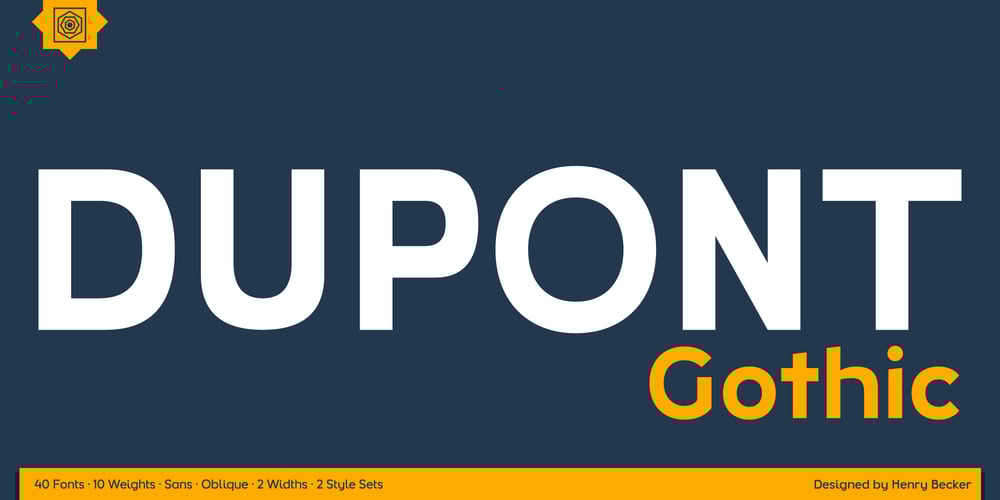
Dupont Gothic Font Family was designed by Henry Becker and published by Hexagon Foundry. Dupont Gothic contains 40 styles and family package options. Dupont Gothic is a sleek and contemporary sans-serif font that embodies elegance, clarity, and modernity. With its clean lines, balanced proportions, and distinctive character, Dupont Gothic is a versatile typeface that can be used in many ways.The simplicity of Dupont Gothic lends itself to a wide range of applications. Whether used for headlines, body text, or branding, this font possesses a quality to effortlessly adapt to different design contexts.The font comes in 10 weights with matching oblique characters, 2 widths, and 2 style sets that ensure the endless combinations and possibilities.